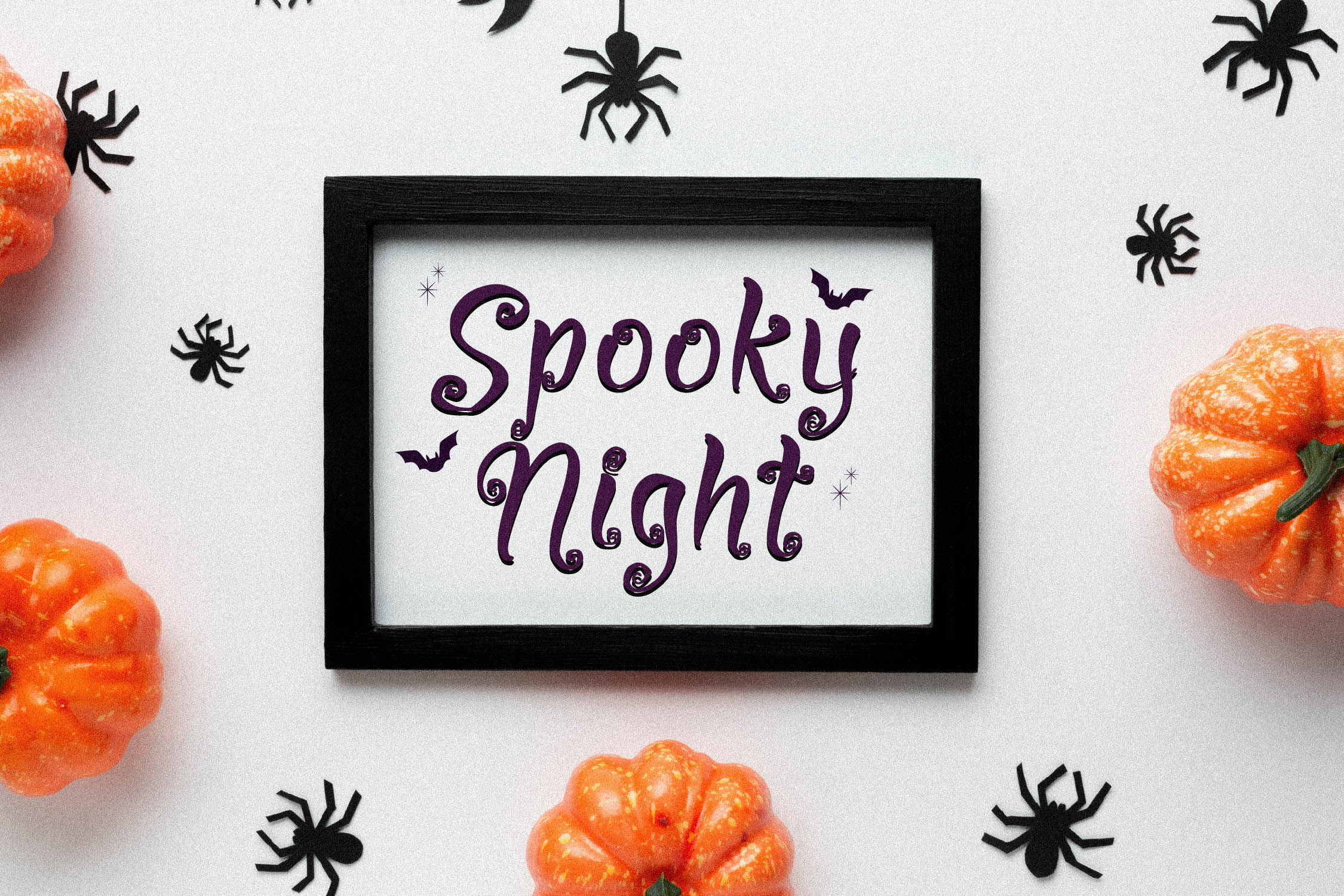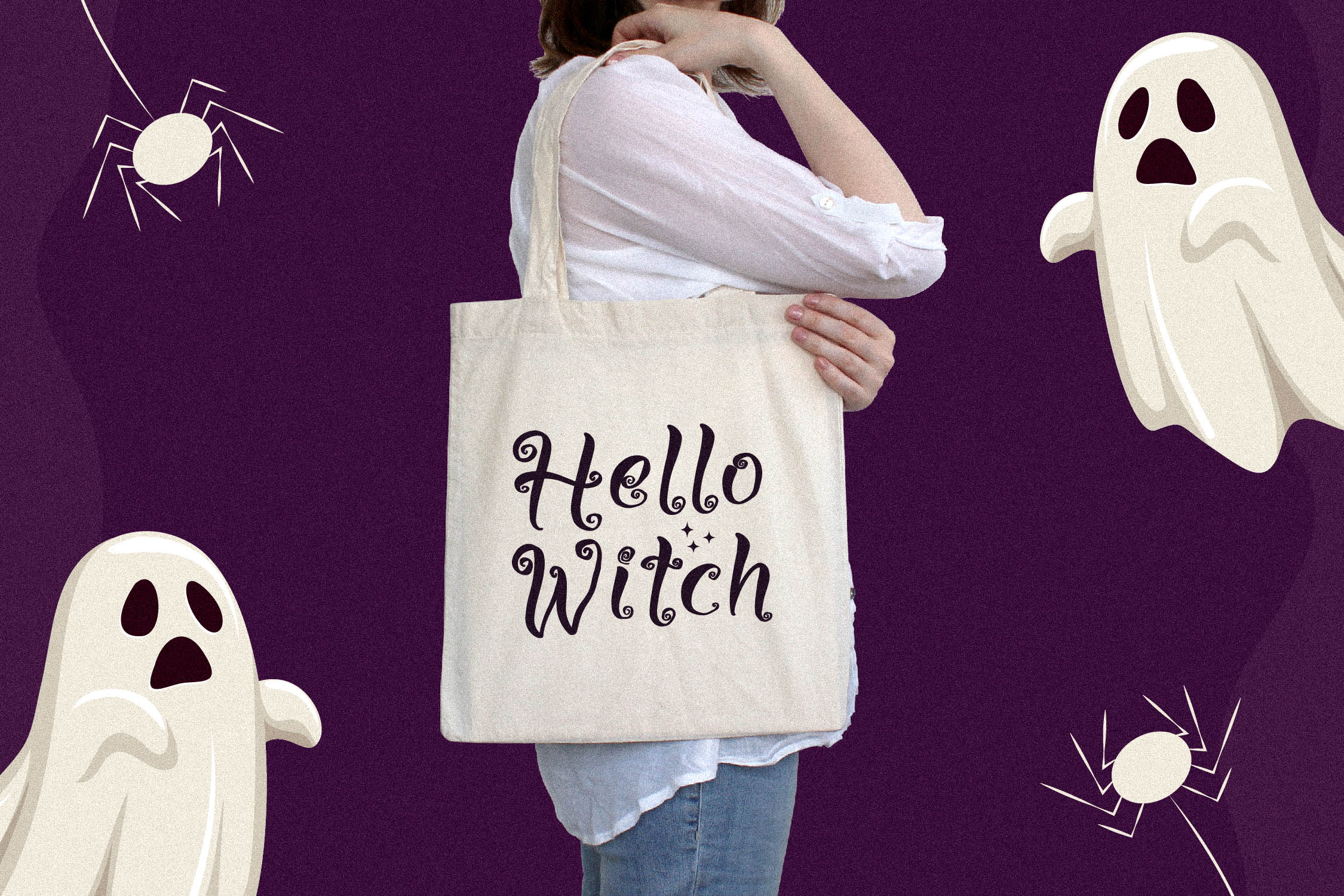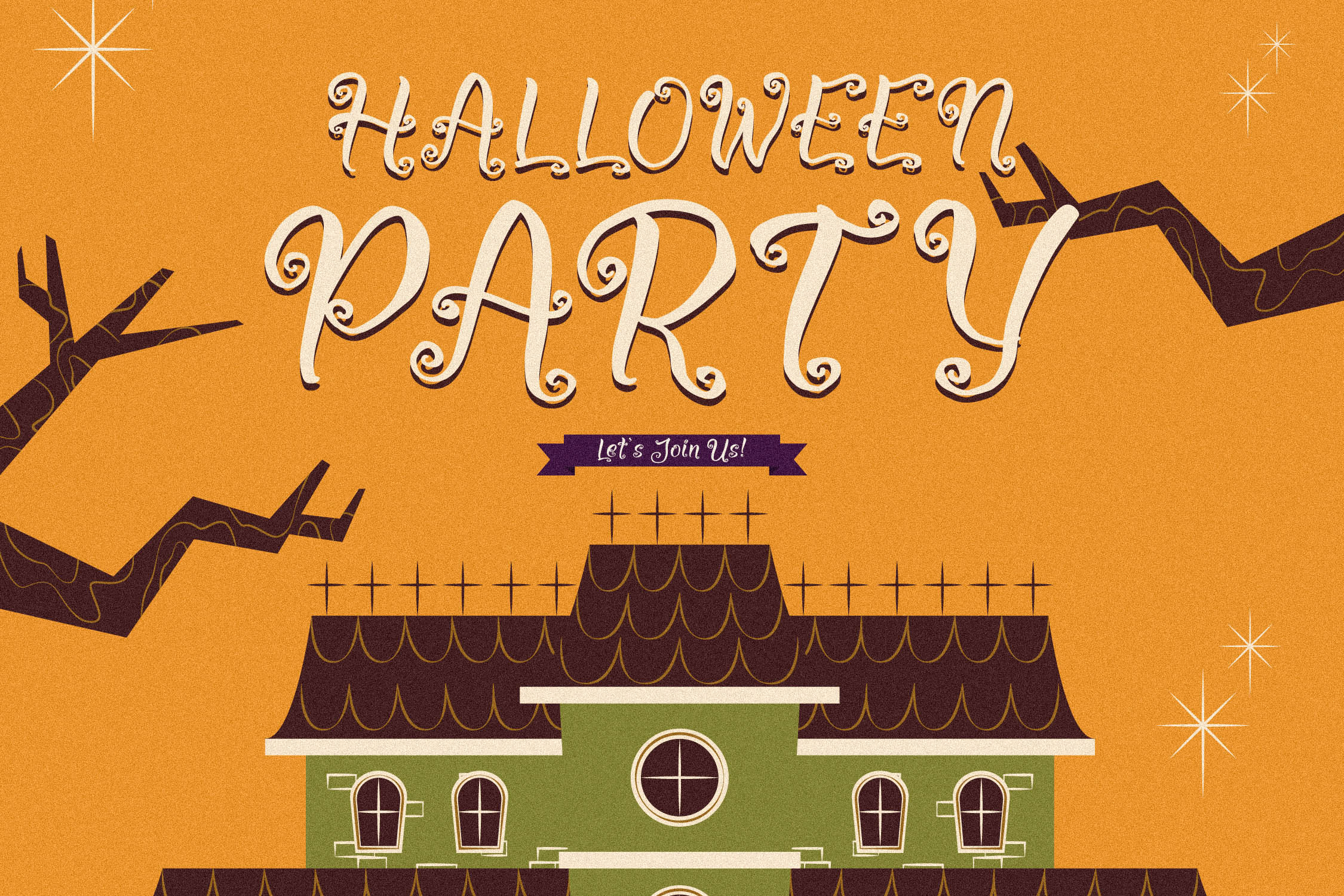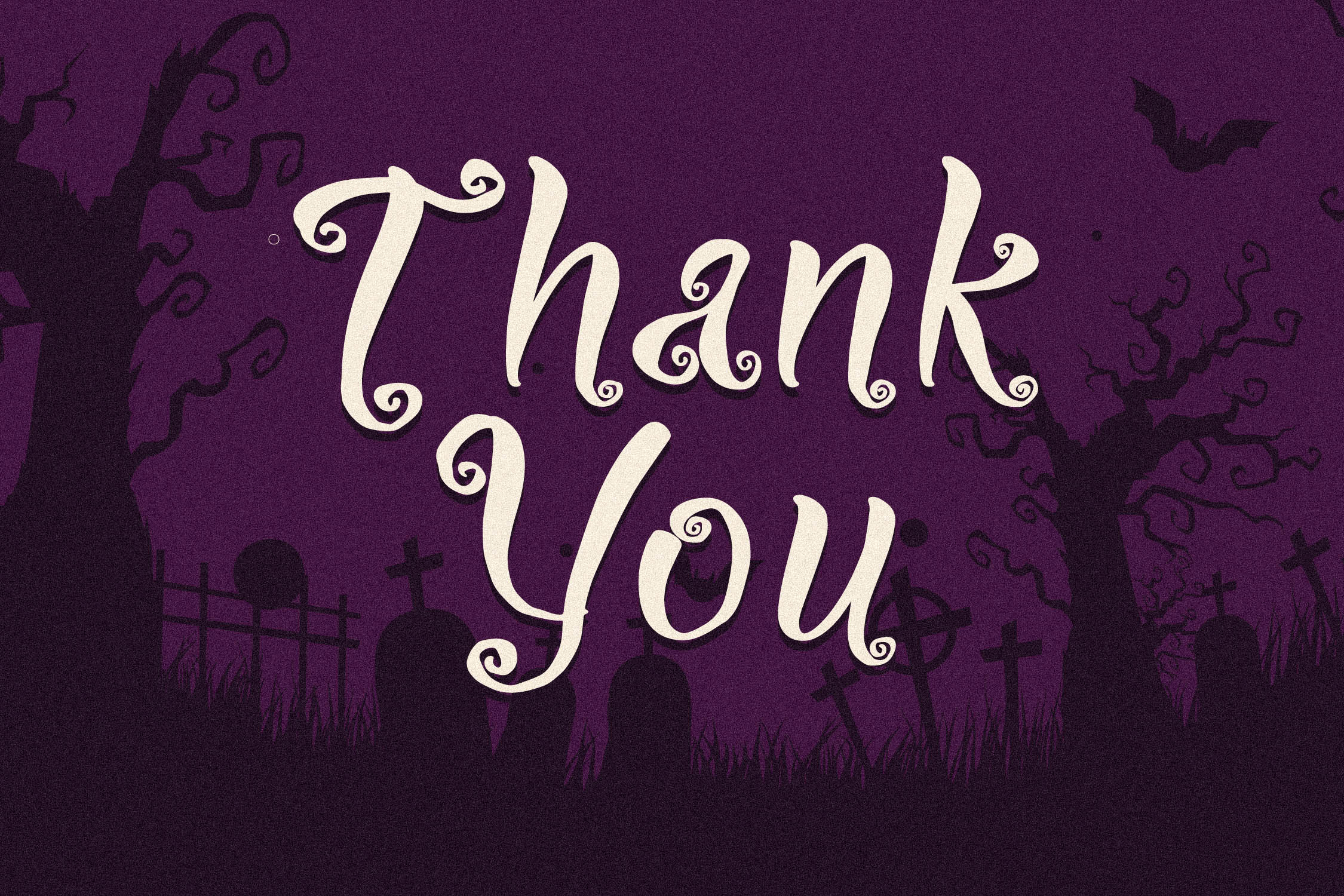
Weekfast Pumpkins Font
Weekfast Pumpkins Display Font is a Halloween Font , suitable for any projects such as: logos, branding projects, homeware designs, product packaging, mugs, quotes, posters, shopping bags, t-shirts, book covers, name card, invitation cards, greeting cards, label, photography, watermark, special events, and all your other lovely projects that need a beautiful script taste.